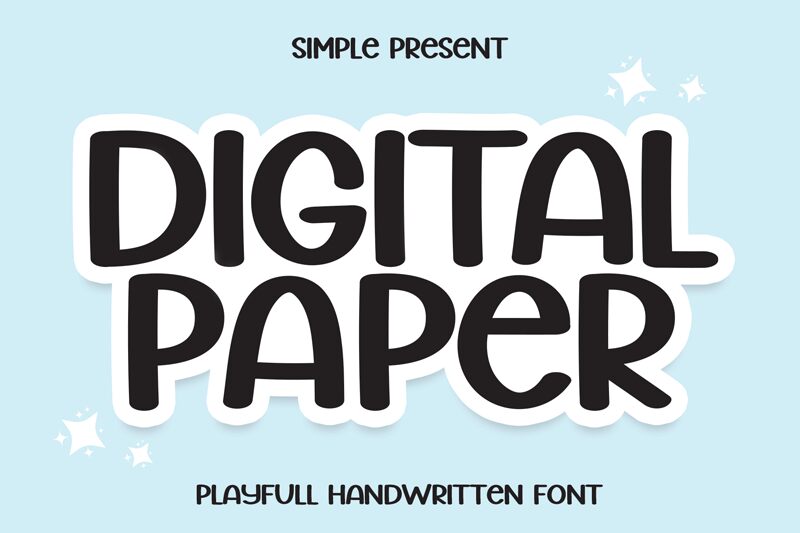
Digital Paper
Digital Paper, a captivating handwritten font by Scratchones, adds a touch of authenticity and creativity to any project.
With its semi-bold weight and semi-expanded width, this versatile font is perfect for various projects, ranging from elegant wedding invitations to eye-catching logos for boutique brands. Its unique style captures the essence of human expression, making it an ideal choice for personal blogs or artistic portfolios.
Let Digital Paper bring your designs to life with its charming and distinctive handwritten aesthetic.